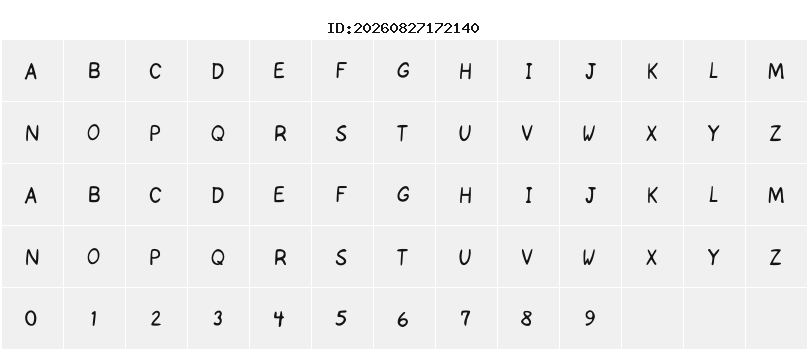
• Font Name: 000_INSOMNIAC_COMIC_DIALOGUE
About 000_INSOMNIAC_COMIC_DIALOGUE.ttf
000_INSOMNIAC_COMIC_DIALOGUE.ttf is a modern, elegant sans-serif font designed for ultimate readability and visual harmony. Perfect for branding, headlines, web design, and print materials.